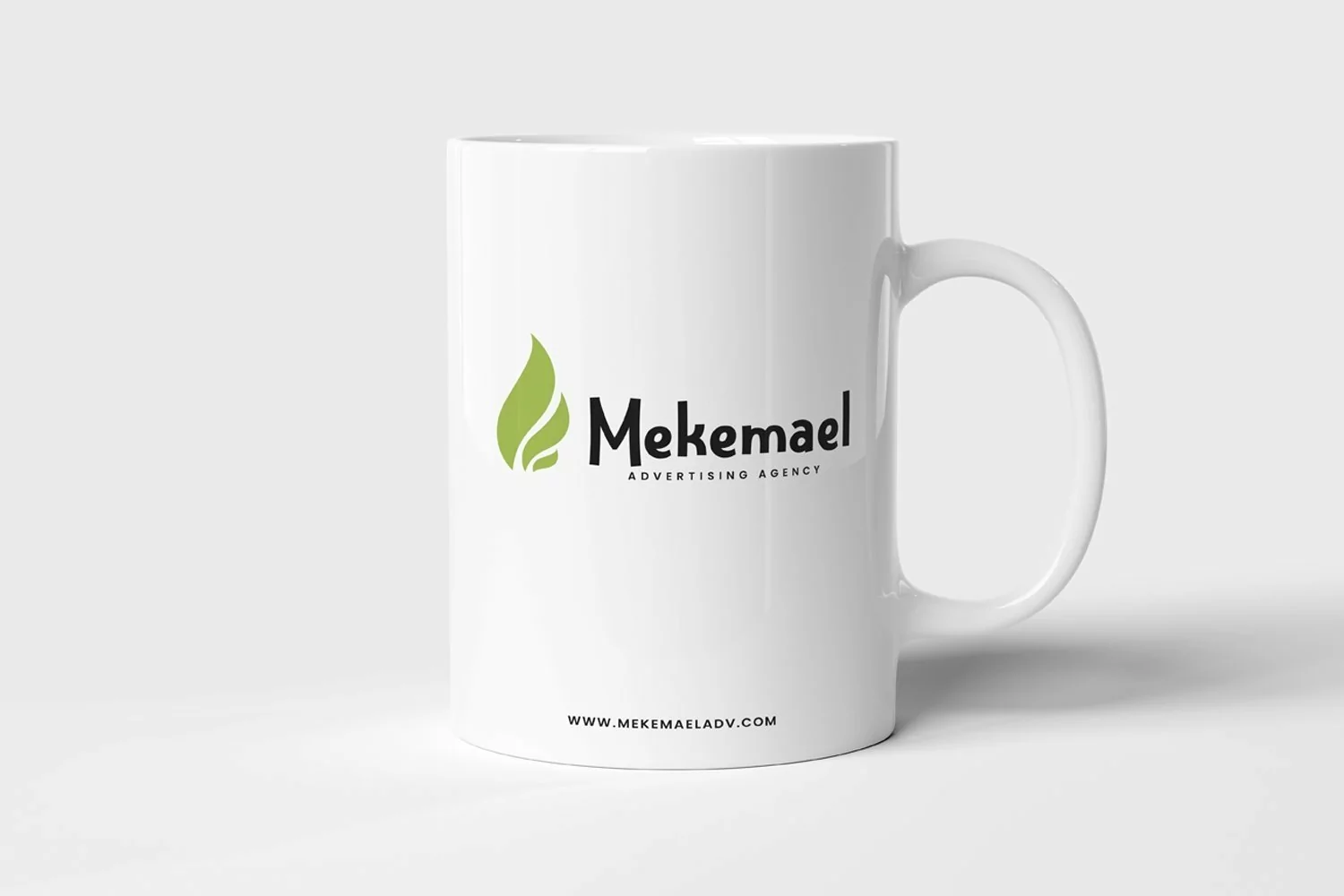
Mikyens is a display typeface. Perfect for display, poster, quotes, logo, logotype, label, badges, branding, packaging, merchandise, wedding needs, business card, name card and many more.